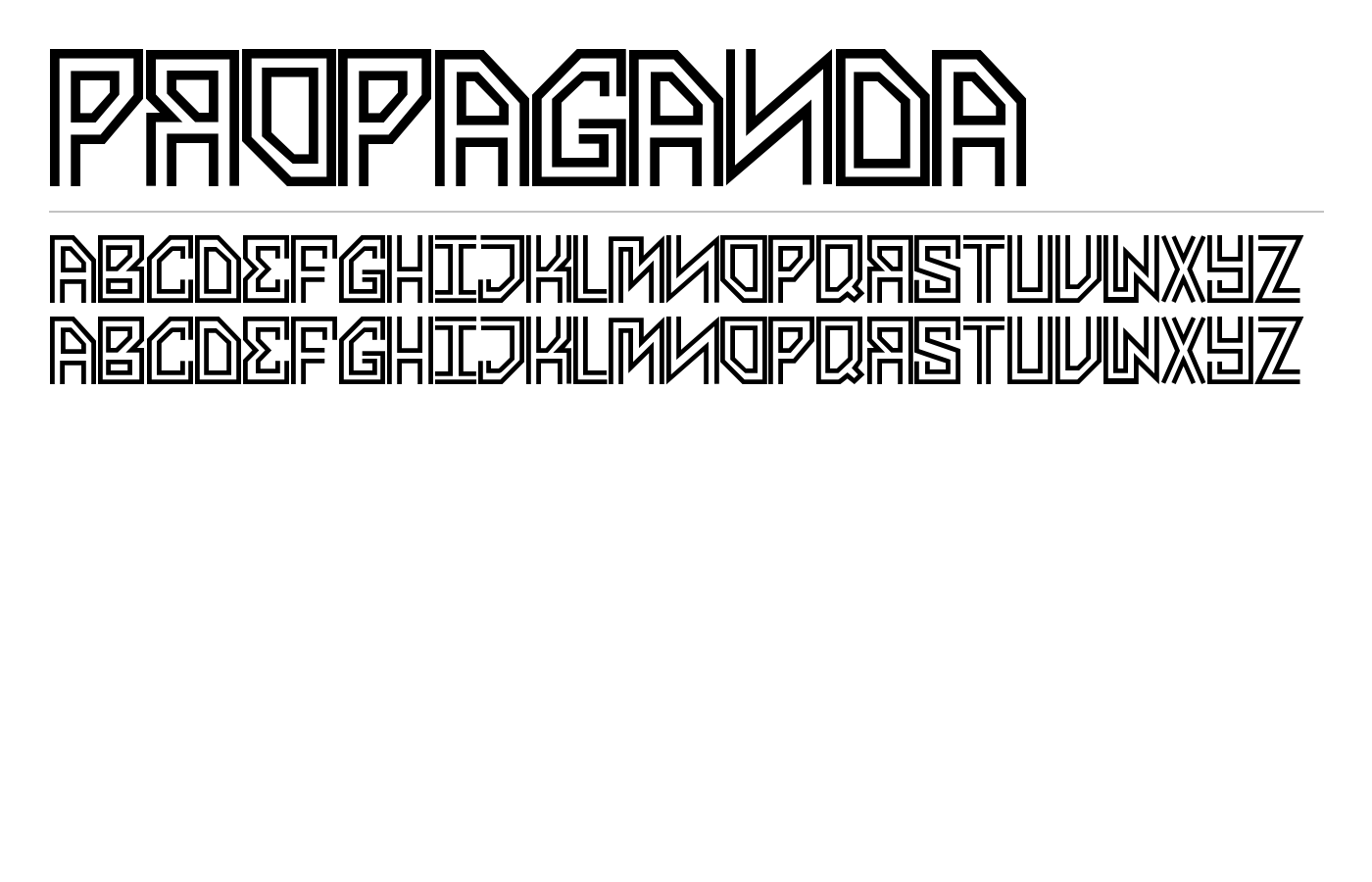
AVENGE ME is a bold, geometric sans serif font featuring sharp, angular lines and a distinctive layered outline style that creates a striking, techno-inspired look. Its tall, condensed letterforms with high contrast strokes and unique futuristic angles make it ideal for eye-catching headlines, logos, and modern graphic projects that seek a dynamic, edgy vibe. This font works especially well in branding and posters where strong visual impact and a contemporary, urban feel are desired.
AVENGE ME Font
About AVENGE ME Font